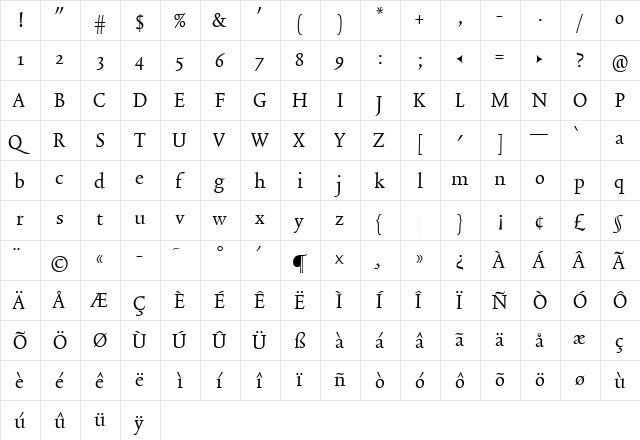
TriniteNo2 Roman
Design Context for TriniteNo2 Typeface
TriniteNo2 is a composed and adaptable typeface that performs quietly and consistently across a wide range of design contexts.